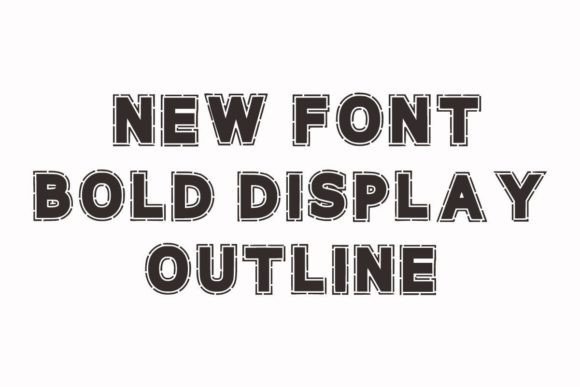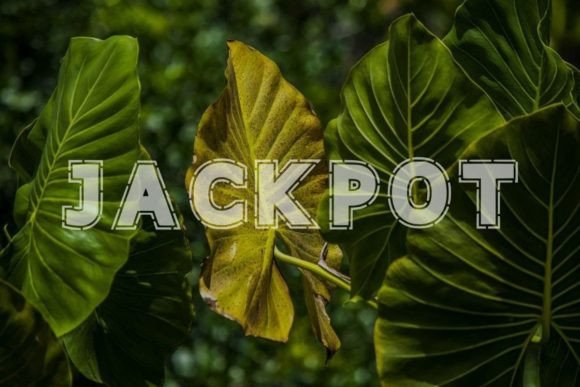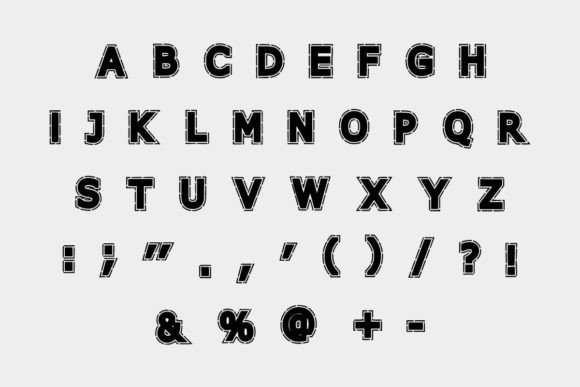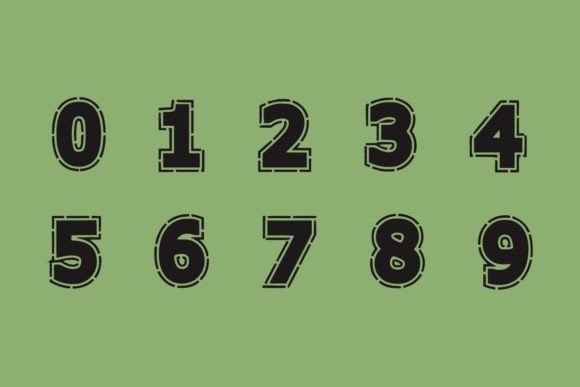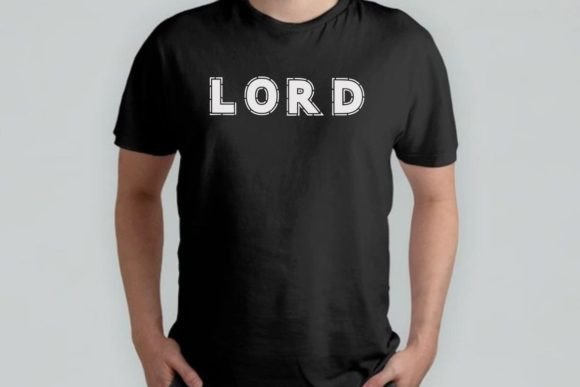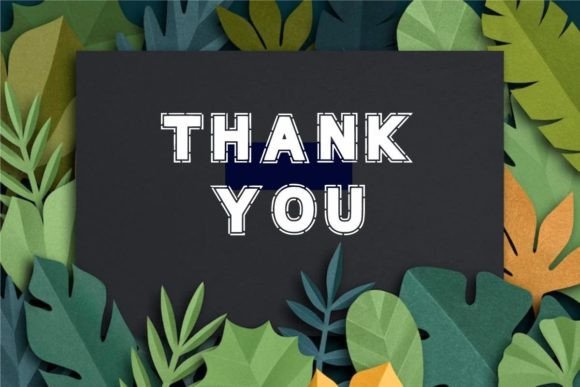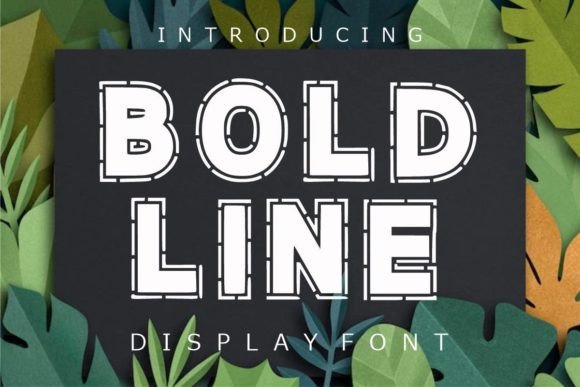
BOLD LINE Font: The Ultimate Display Font for Designers and Crafters
In the world of typography, a bold line font can make all the difference in creating visually stunning designs that capture attention and convey a message with clarity. One such font that has gained popularity among designers and crafters is BOLD LINE, a bold and adaptable display font that exudes friendliness and approachability. In this article, we’ll explore the features, benefits, and uses of BOLD LINE font, and why it’s an excellent addition to your design toolkit.
What is BOLD LINE Font?
BOLD LINE is a carefully crafted display font designed to make a statement. Its bold and sturdy lines make it easy to read, even at smaller sizes, while its friendly demeanor adds a touch of approachability to any design. Whether you’re working on a logo, digital design, presentation, or greeting card, BOLD LINE font is an excellent choice.
Key Features of BOLD LINE Font
- Bold and Adaptable: BOLD LINE font is designed to be versatile, making it suitable for a wide range of design applications.
- Easy to Read: The font’s clear and sturdy lines ensure that your message is conveyed with clarity, even at smaller sizes.
- Impeccable Friendliness: BOLD LINE font has a warm and approachable feel, making it perfect for designs that require a personal touch.
Uses of BOLD LINE Font
BOLD LINE font is an incredibly versatile font that can be used in various design applications, including:
- Crafts: Add a personal touch to your craft projects, such as handmade cards, scrapbooking, and DIY decorations.
- Logo Design: Create a bold and memorable logo for your business or brand.
- Digital Design: Use BOLD LINE font in your digital designs, such as social media graphics, blog posts, and website headers.
- Presentations: Add a professional touch to your presentations with BOLD LINE font.
- Greeting Cards: Create personalized and eye-catching greeting cards for special occasions.
Benefits of Using BOLD LINE Font
Using BOLD LINE font in your designs offers several benefits, including:
- Improved Readability: BOLD LINE font is designed to be easy to read, ensuring that your message is conveyed with clarity.
- Enhanced Visual Appeal: The font’s bold and friendly demeanor adds a touch of personality to your designs.
- Increased Versatility: BOLD LINE font can be used in a wide range of design applications, making it an excellent addition to your design toolkit.
Tips for Using BOLD LINE Font
To get the most out of BOLD LINE font, here are some tips to keep in mind:
- Use it as a Headline Font: BOLD LINE font is perfect for headlines and titles, where you want to grab attention and convey a message with clarity.
- Pair it with Other Fonts: Experiment with pairing BOLD LINE font with other fonts to create a unique and visually appealing design.
- Adjust the Size and Color: Play around with different sizes and colors to find the perfect combination for your design.
In conclusion, BOLD LINE font is an excellent addition to any design toolkit. Its bold and adaptable nature, ease of readability, and impeccable friendliness make it perfect for a wide range of design applications. Whether you’re a designer, crafter, or DIY enthusiast, BOLD LINE font is sure to become a favorite. So why not give it a try and see how it can elevate your designs to the next level?